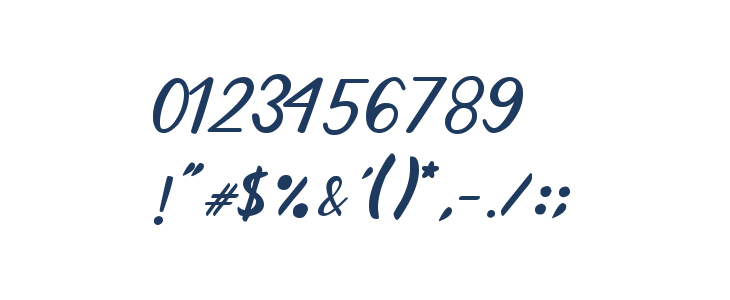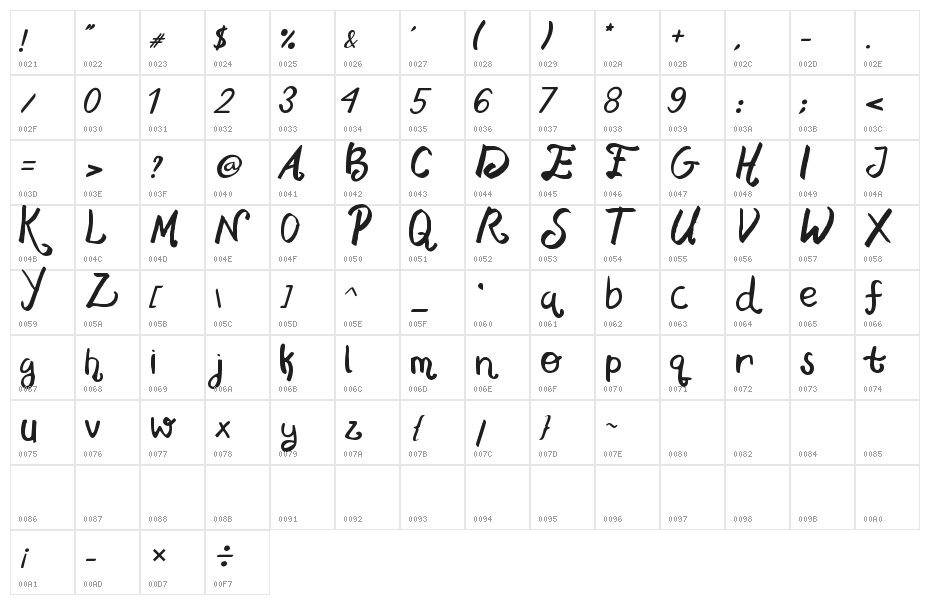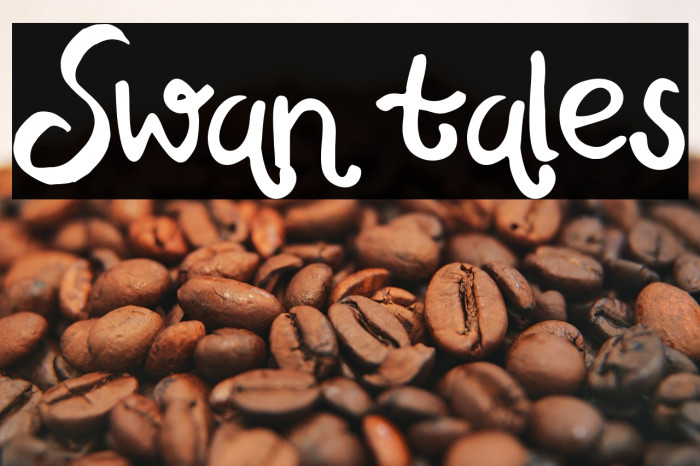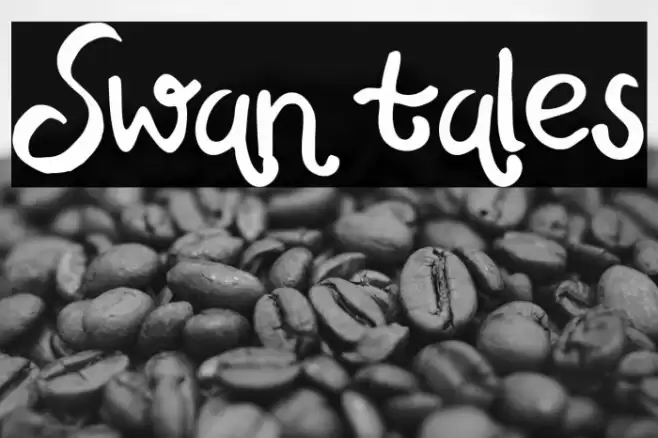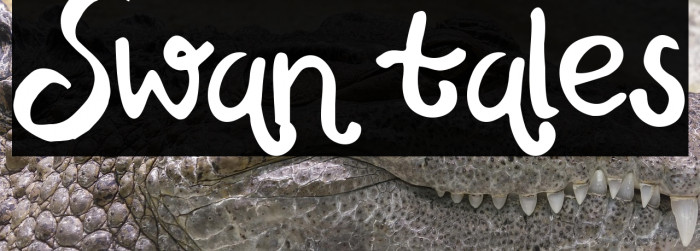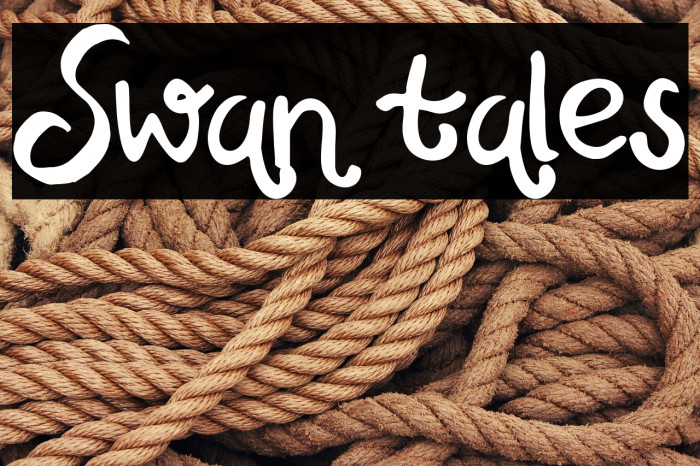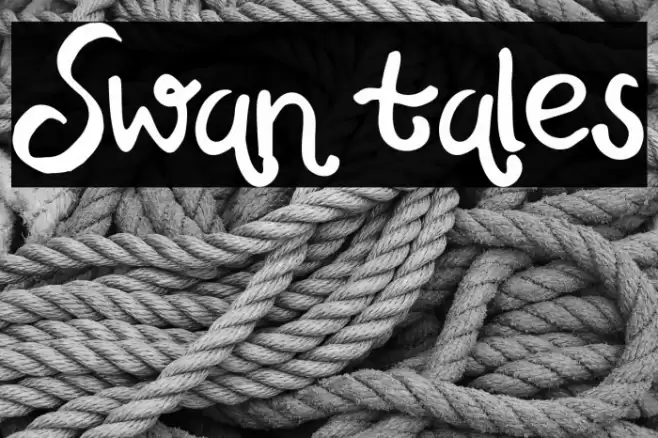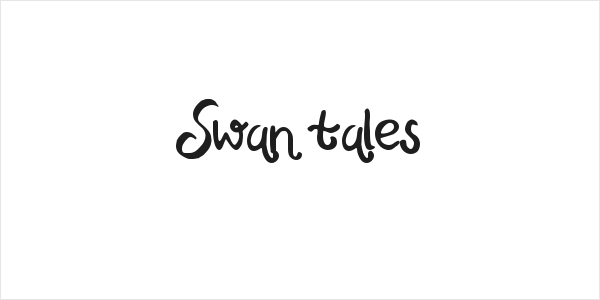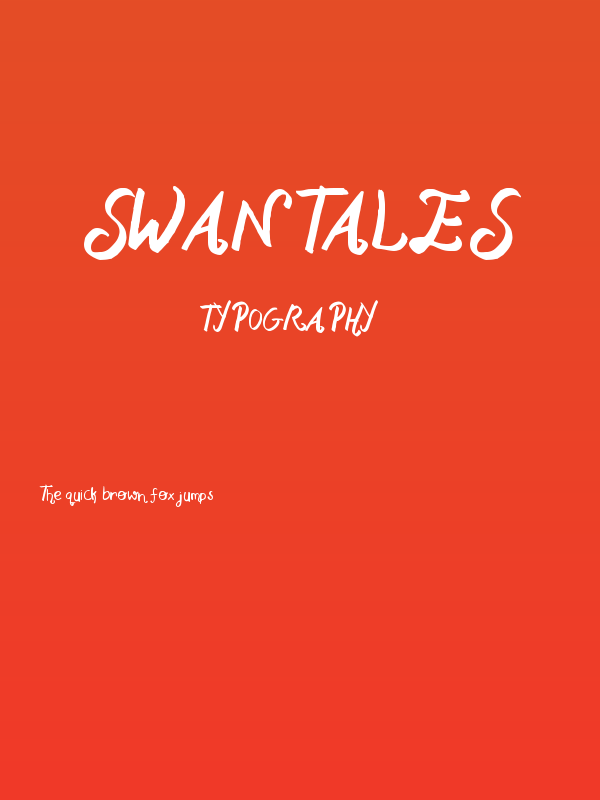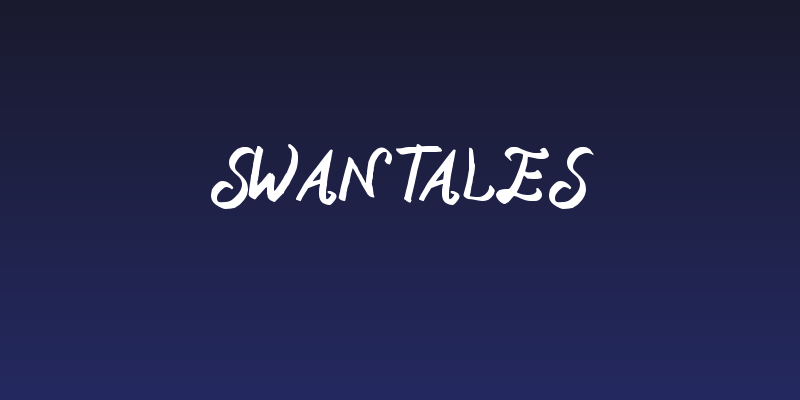
Swan tales Font
Swan tales Description
This font features a dynamic and fluid script style, characterized by its bold and expressive strokes. The letters have a hand-drawn quality, with a playful and artistic flair that gives it a unique personality. The uppercase letters are slightly more structured, while the lowercase letters exhibit a more casual and freeform appearance. The numerals and special characters maintain the same lively style, ensuring consistency throughout. This font's design is both whimsical and elegant, making it suitable for creative projects that require a touch of individuality.